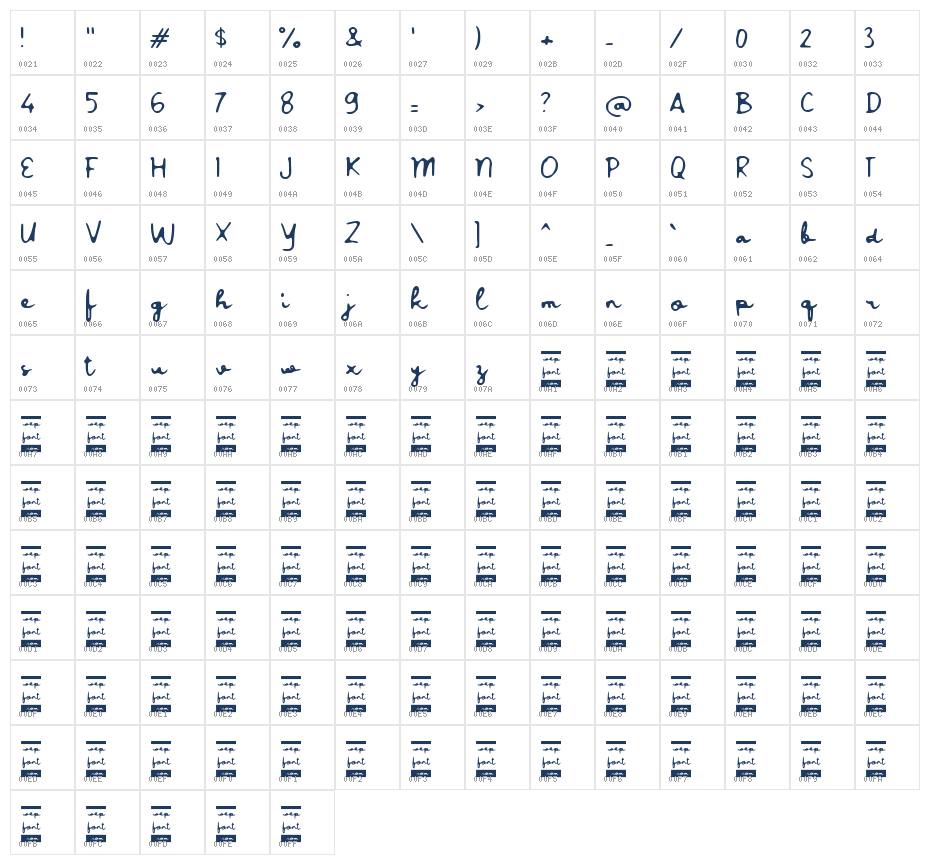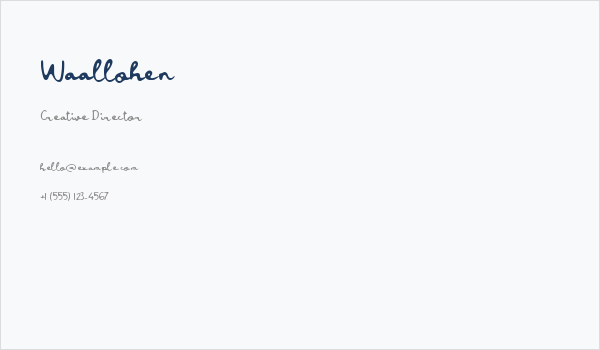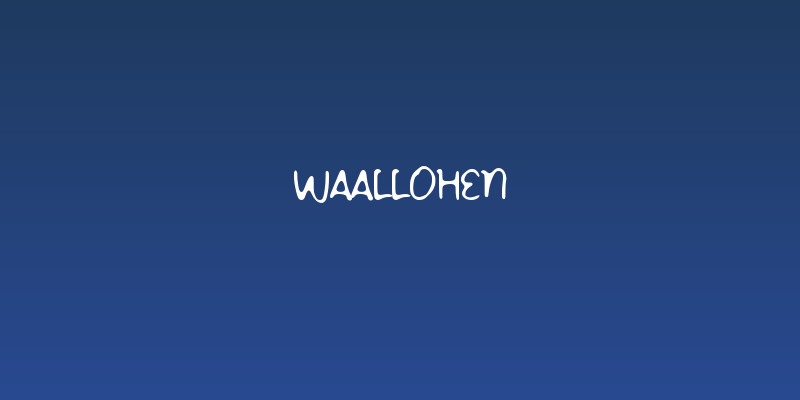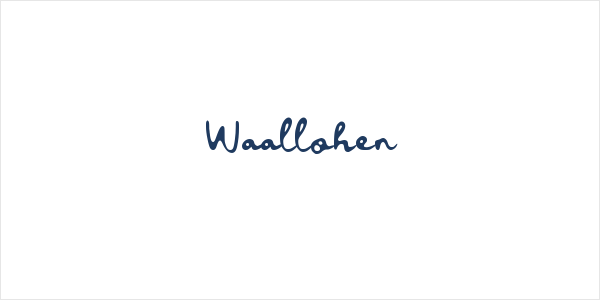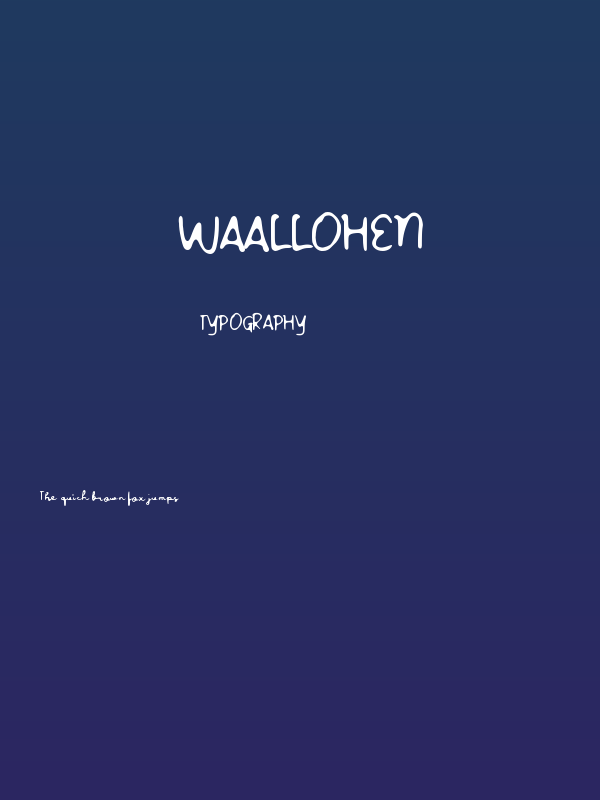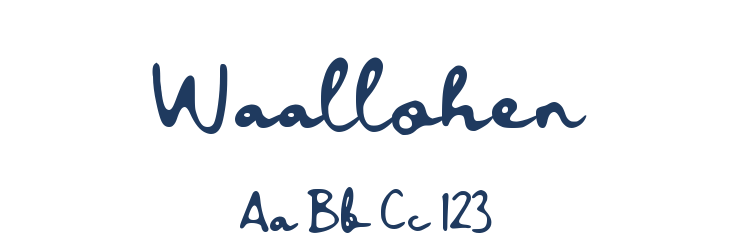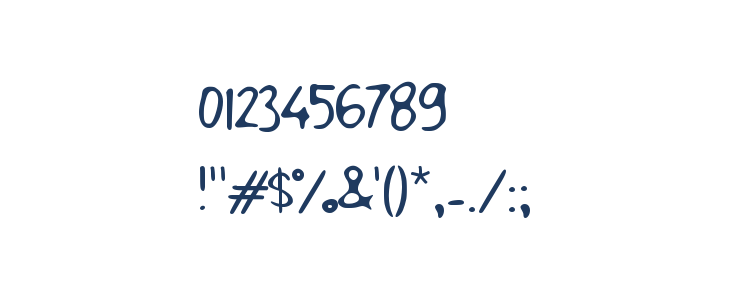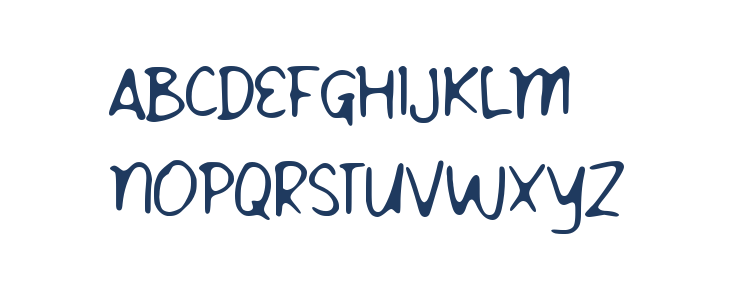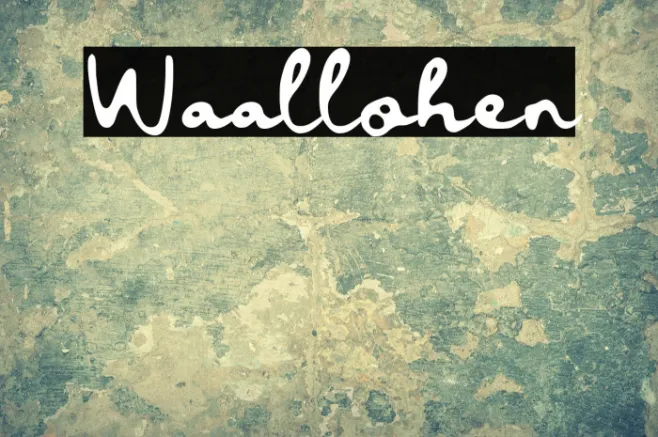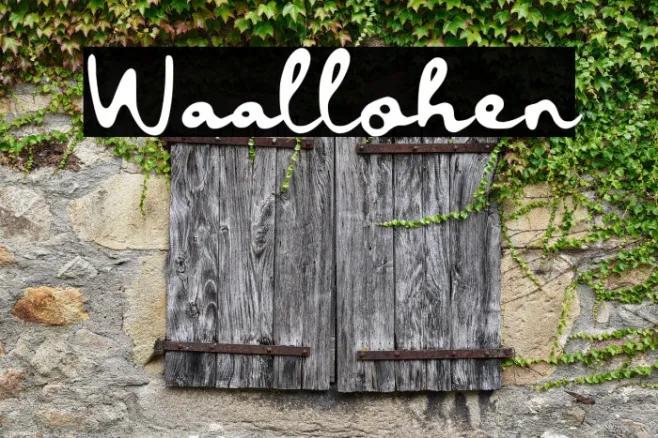
Waallohen Font
Waallohen Description
A playful, handwritten script font with a casual and friendly appearance, featuring slightly irregular strokes and a smooth flow.
| Overall Style | Casual, Friendly, Handwritten |